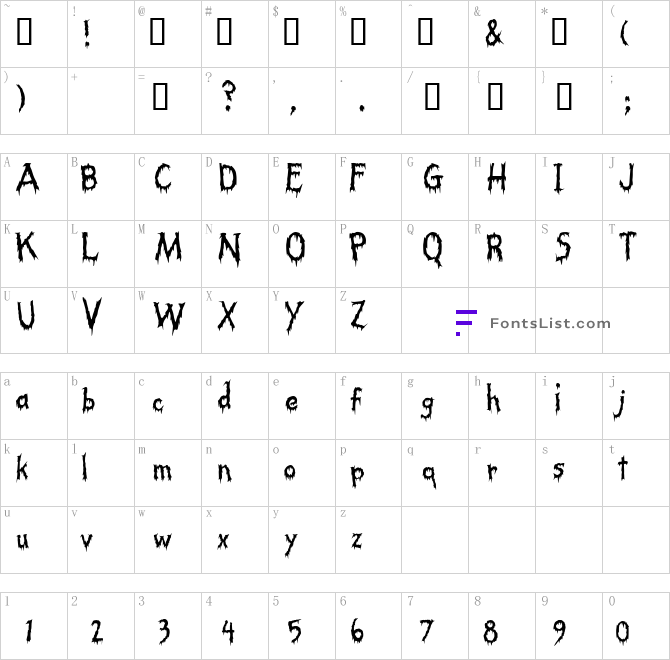
- Font Name:Dagger
Dagger.ttf is a very beautiful artistic font, Dagger.ttf is widely used in the design and printing of various books and pictures,Dagger.ttf has a strong visual impact,Dagger.ttf is a commonly used font in newspapers, magazines and books, and is used in posters, e-commerce Poster design, store design, logo design, font design and other fields.Dagger.